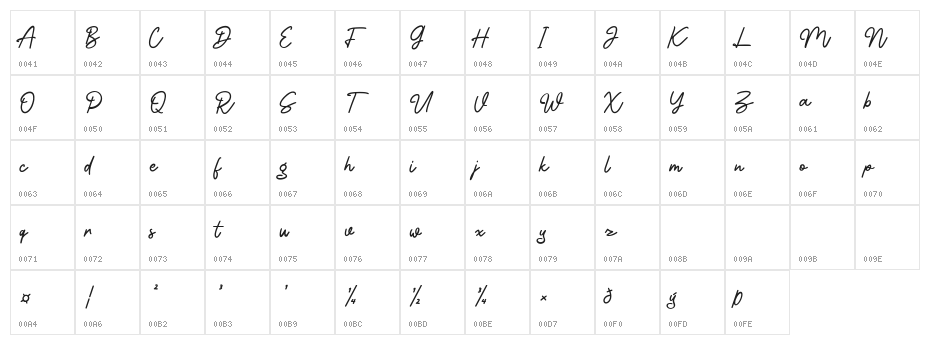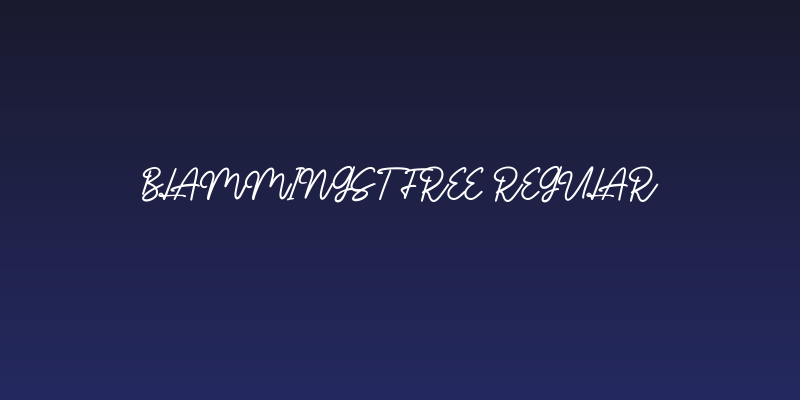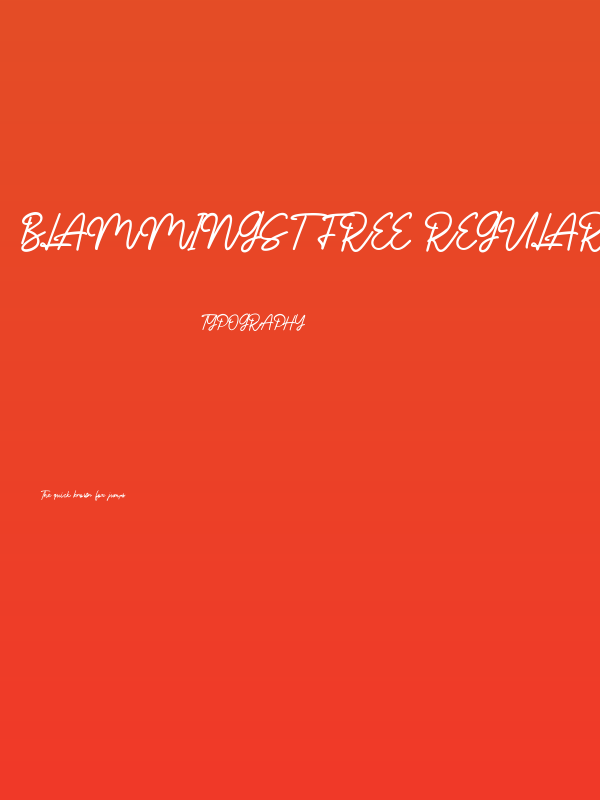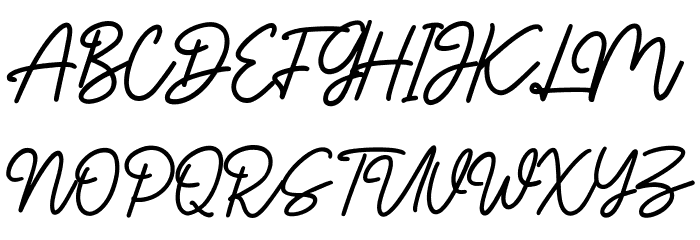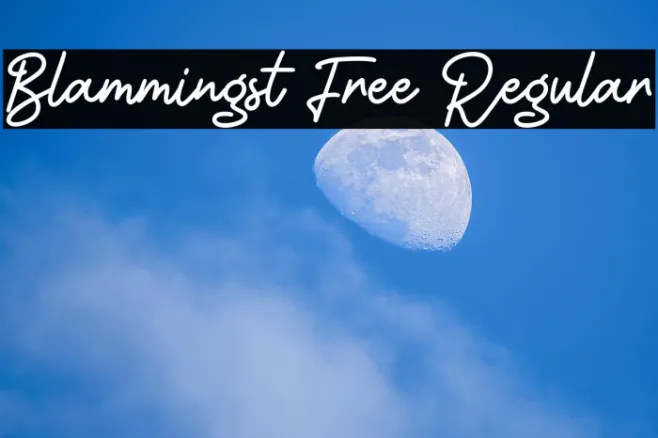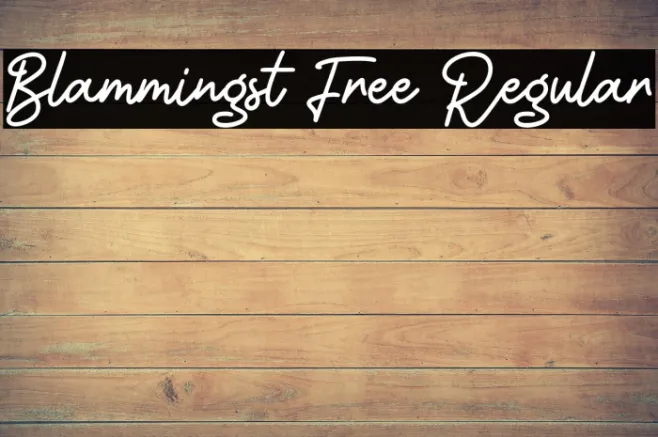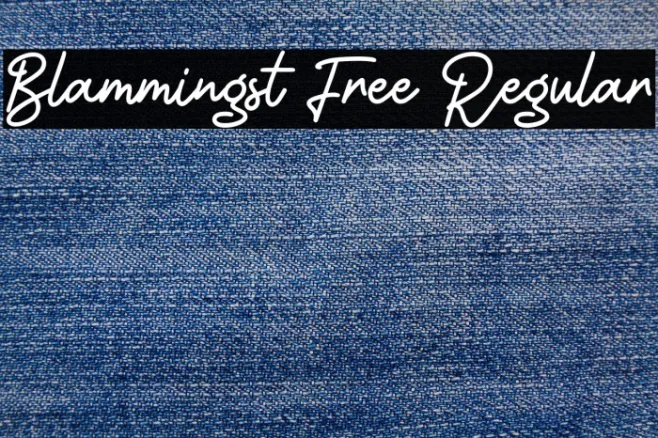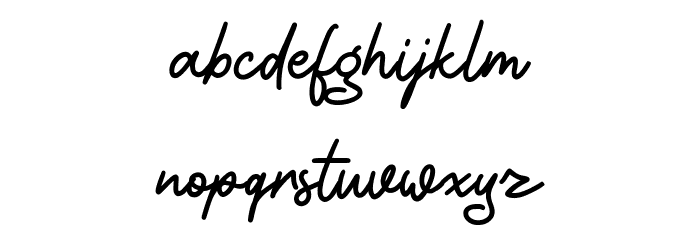
Blammingst Free Regular Font
Blammingst Free Regular Description
This font exudes a casual yet elegant handwritten style, characterized by its fluid and connected strokes. The letters are slightly slanted, giving it a dynamic and lively appearance. The uppercase letters are bold and prominent, while the lowercase letters maintain a consistent flow, enhancing readability. The font's design is reminiscent of cursive handwriting, making it suitable for projects that require a personal touch. The characters are well-spaced, ensuring clarity and legibility even in smaller sizes. The overall style is both modern and timeless, making it versatile for various design needs.
| Proposed Projects | Ideal for wedding invitations, greeting cards, personal branding, and social media graphics. |